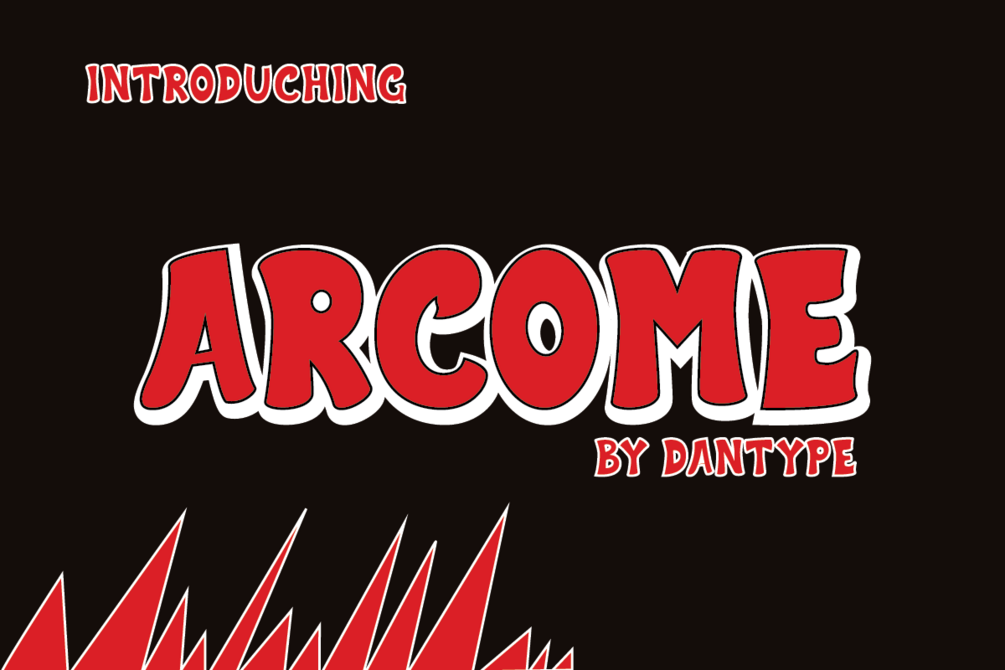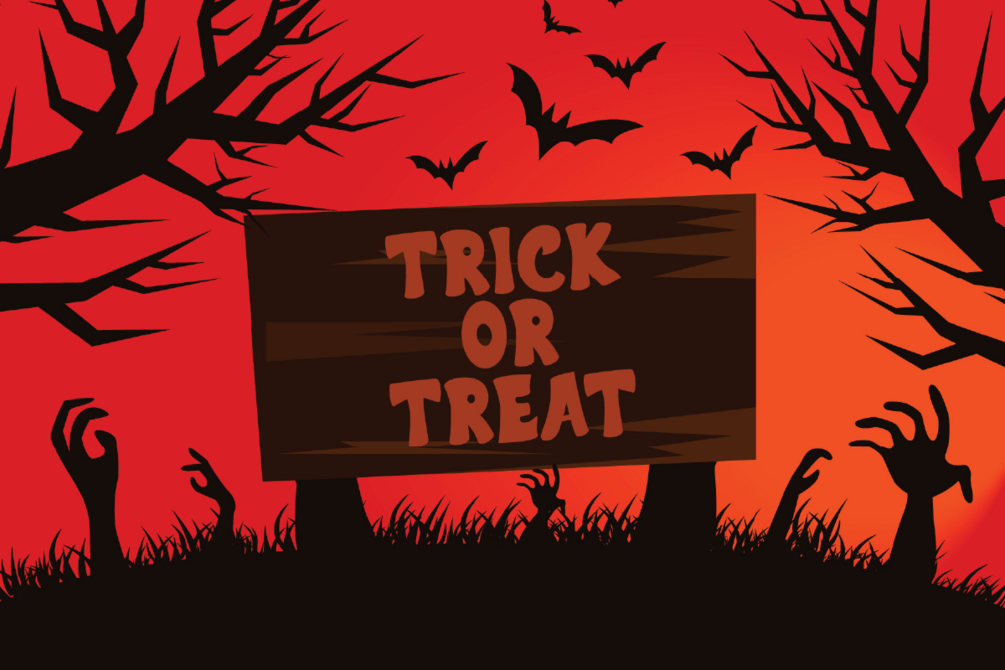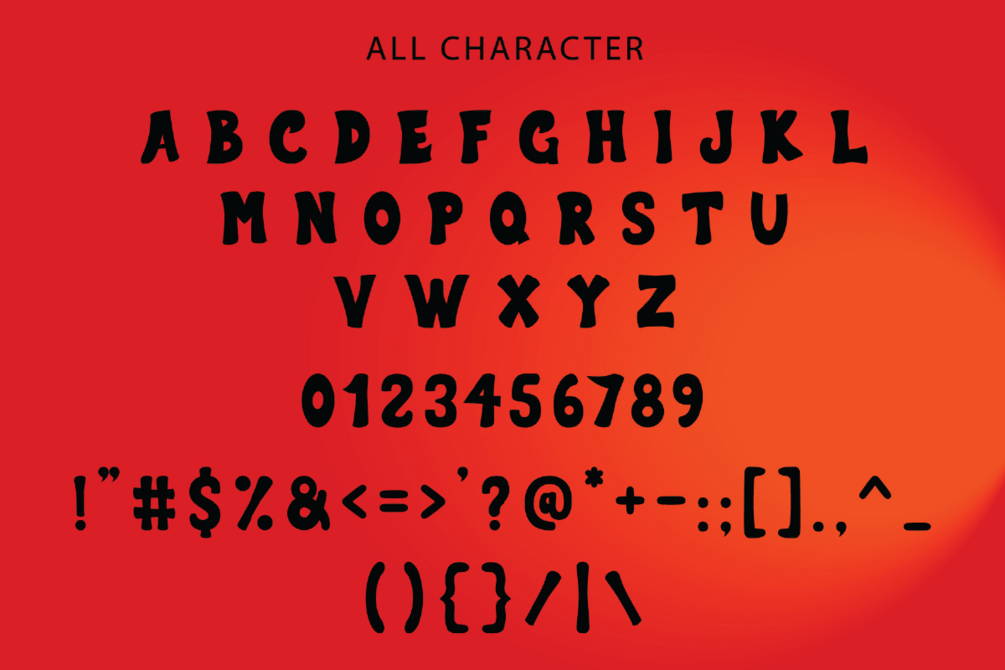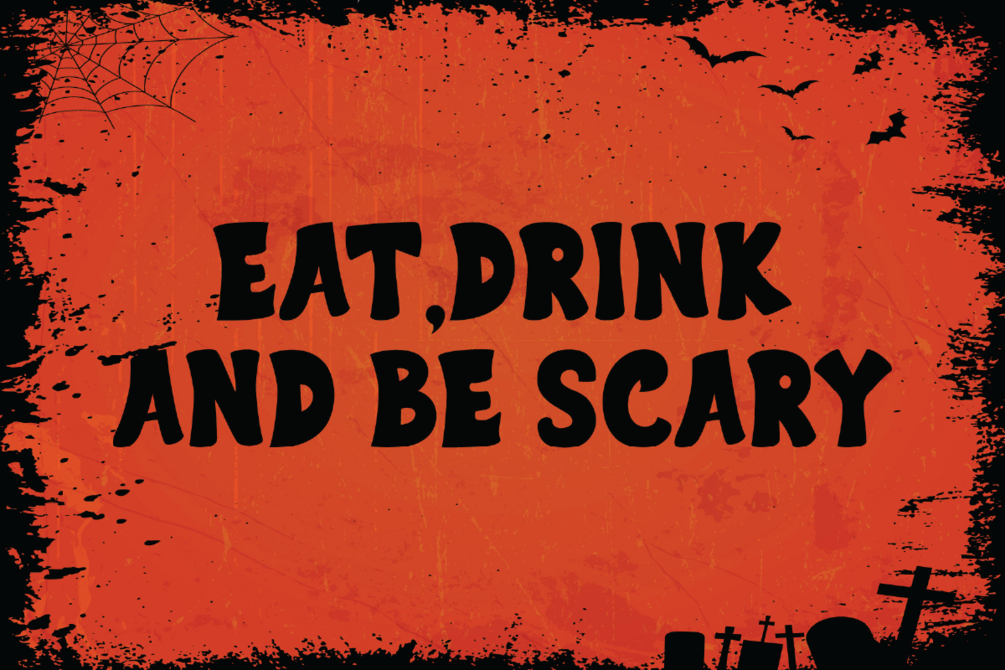
Arcome
Arcome Display font. This font would be perfect for photography, watermarks, social media posts, advertisements, logos & branding, invitations, product design, labels, stationery, product packaging, special events, and other projects.